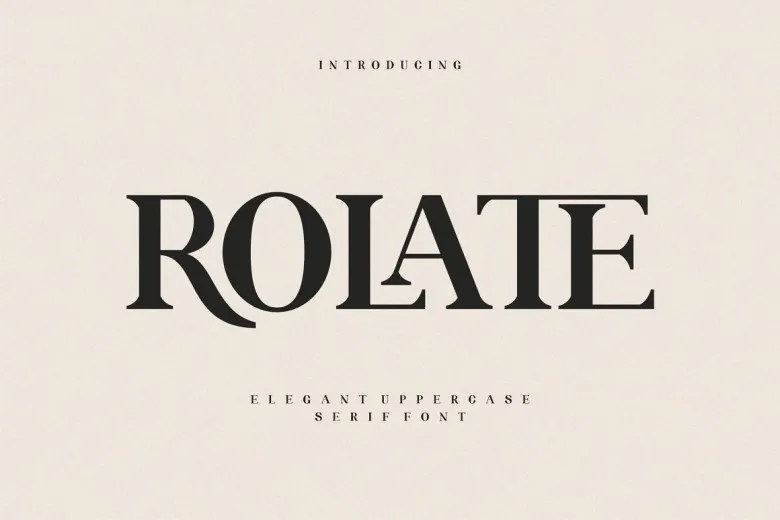
Rolate Font
ROLATE is a distinguished serif typeface that blends elegance with sophistication. Its modern yet nostalgic design makes it a versatile choice for a variety of applications, from logos and magazines to social media posts and other creative content. This font is designed to add a touch of class and contemporary flair to any project, making it ideal for sophisticated design tasks.
Key Features of ROLATE:
• Elegant and Sophisticated: ROLATE stands out with its refined serif design, perfect for creating high-end, stylish designs. Its combination of modern and classic elements ensures that your work will exude both sophistication and timeless charm.
• Versatile Applications: Whether you’re designing logos, editorial content, social media graphics, or other marketing materials, ROLATE offers the flexibility to enhance your visuals with its elegant presence.
• OpenType Features: Designed with OpenType capabilities, ROLATE includes a comprehensive set of punctuation, ligatures, and numbers. This ensures that your text is not only stylish but also functional and readable.
• Multilingual Support: ROLATE supports multiple languages, making it a practical choice for international projects and diverse audiences. The font’s adaptability ensures that your message is communicated effectively, no matter the language.
• Pre-Paired Styles: ROLATE comes ready-to-use with pre-paired styles, saving you time and effort in finding complementary fonts. Its thoughtful design makes it easy to integrate into your next project seamlessly.